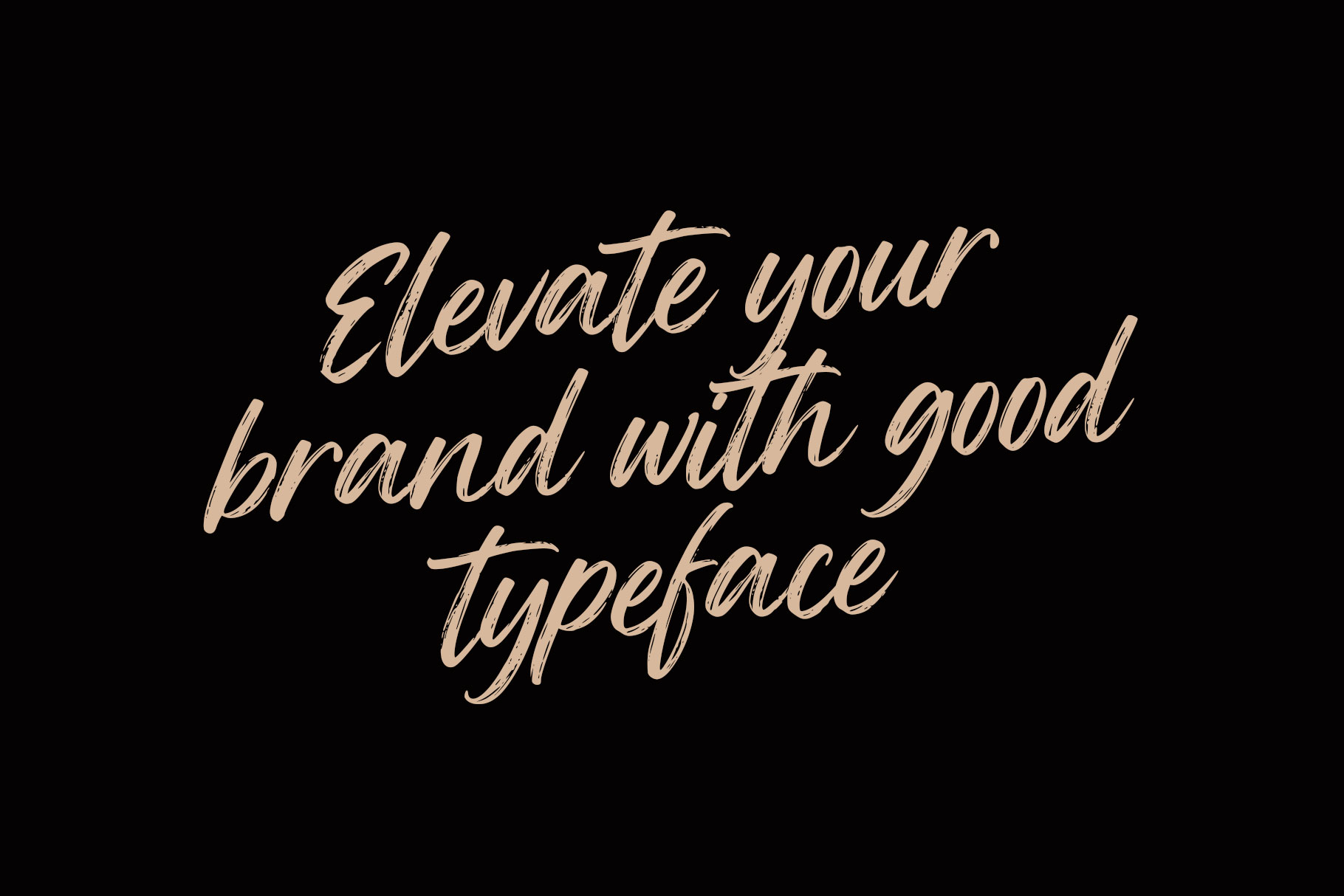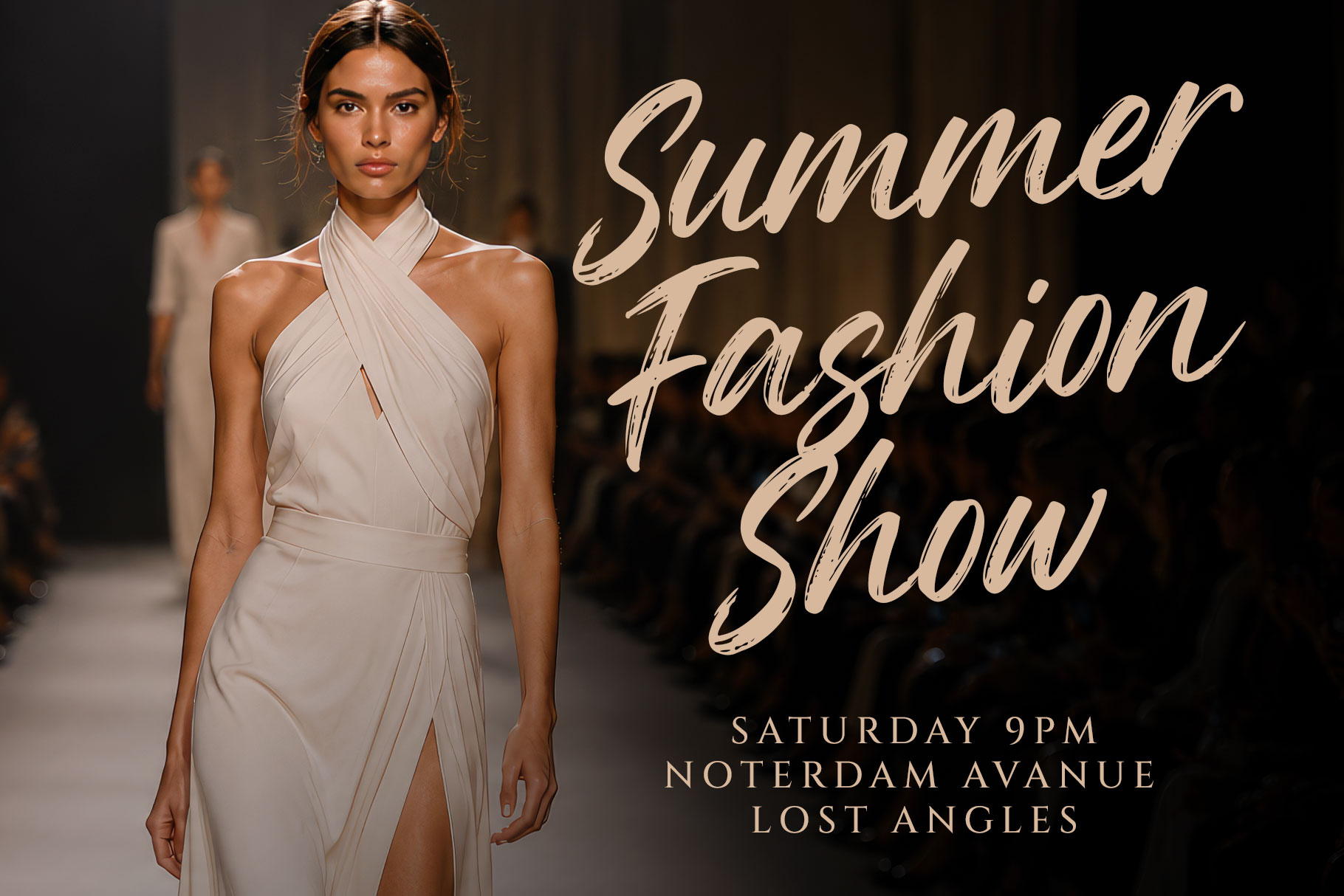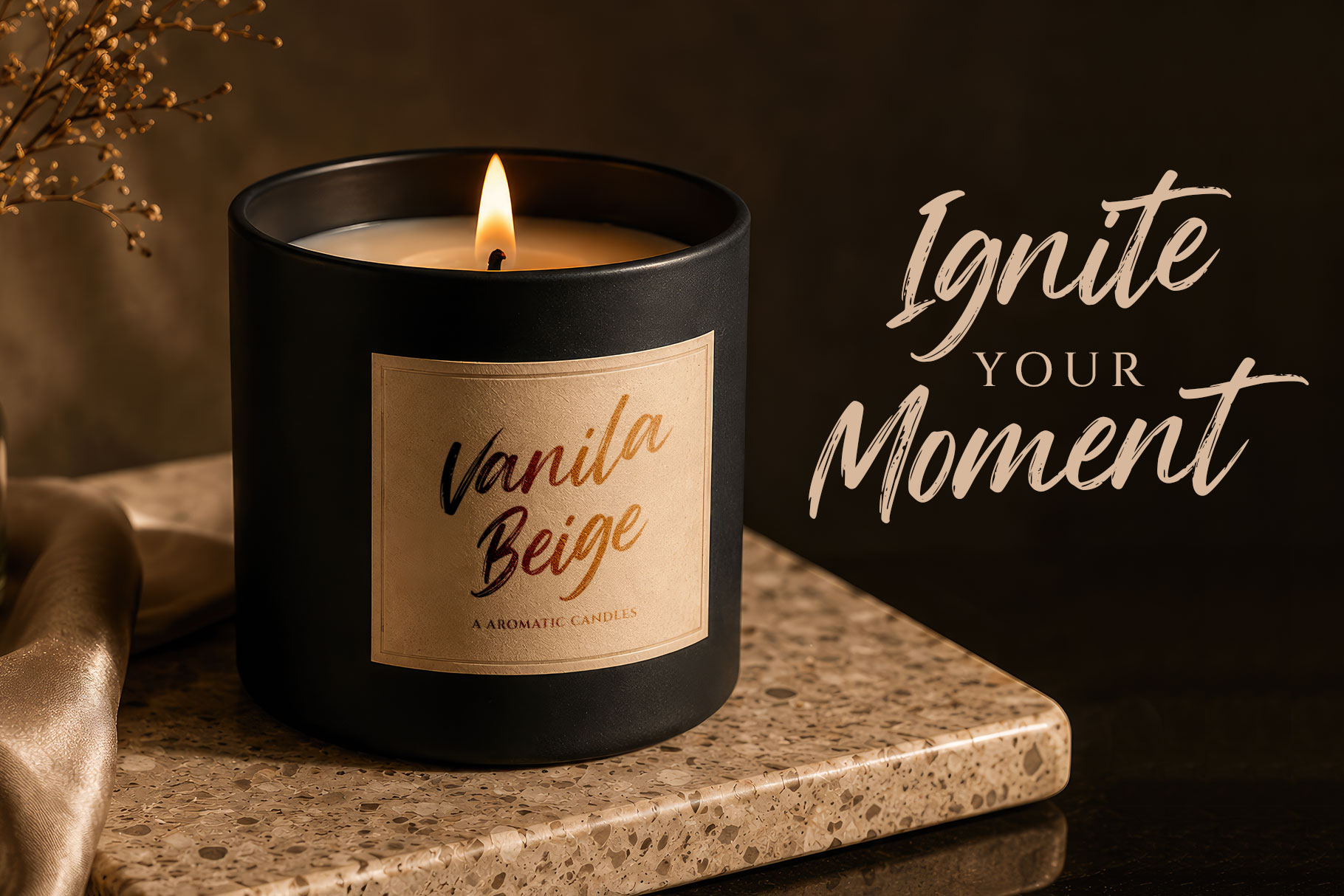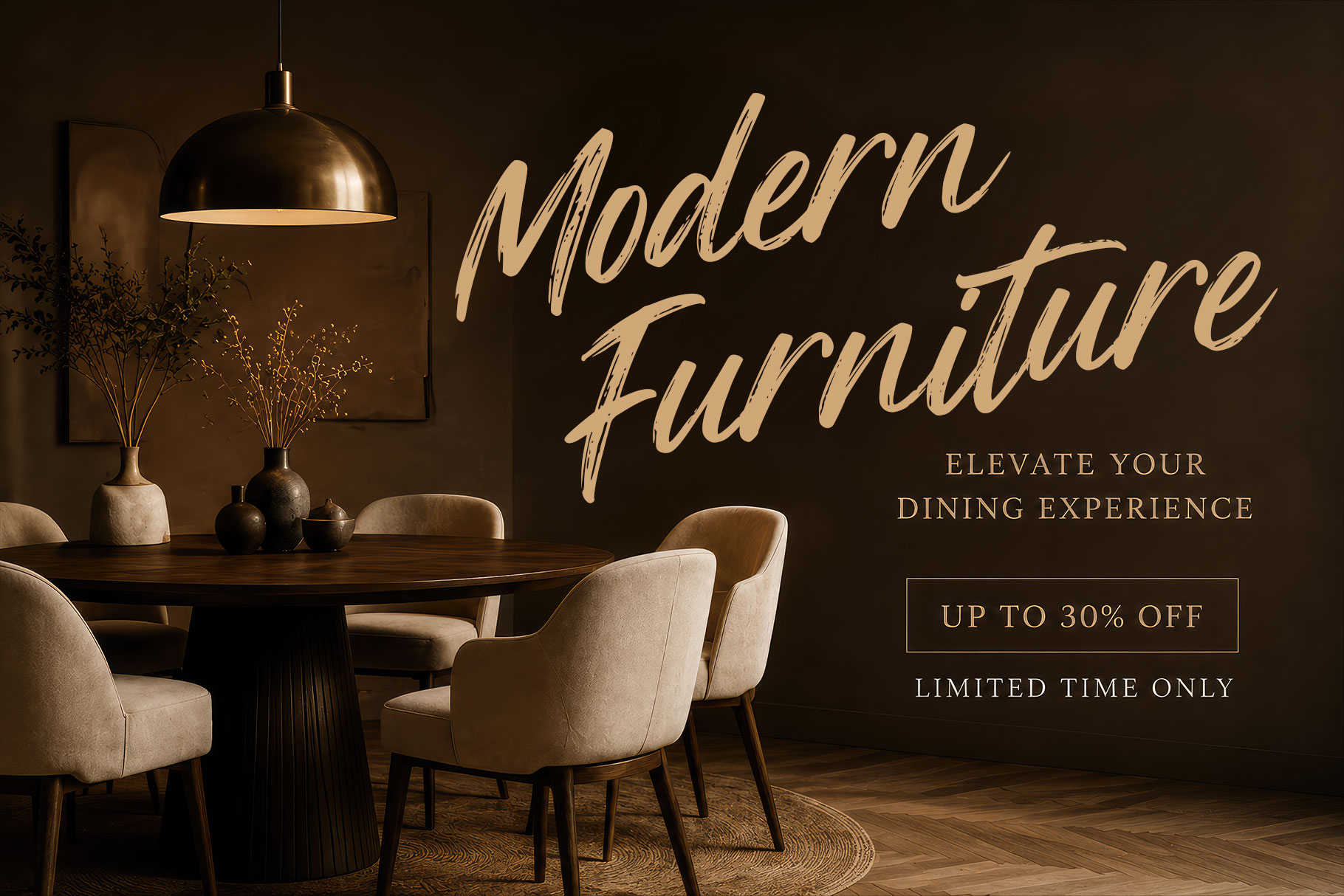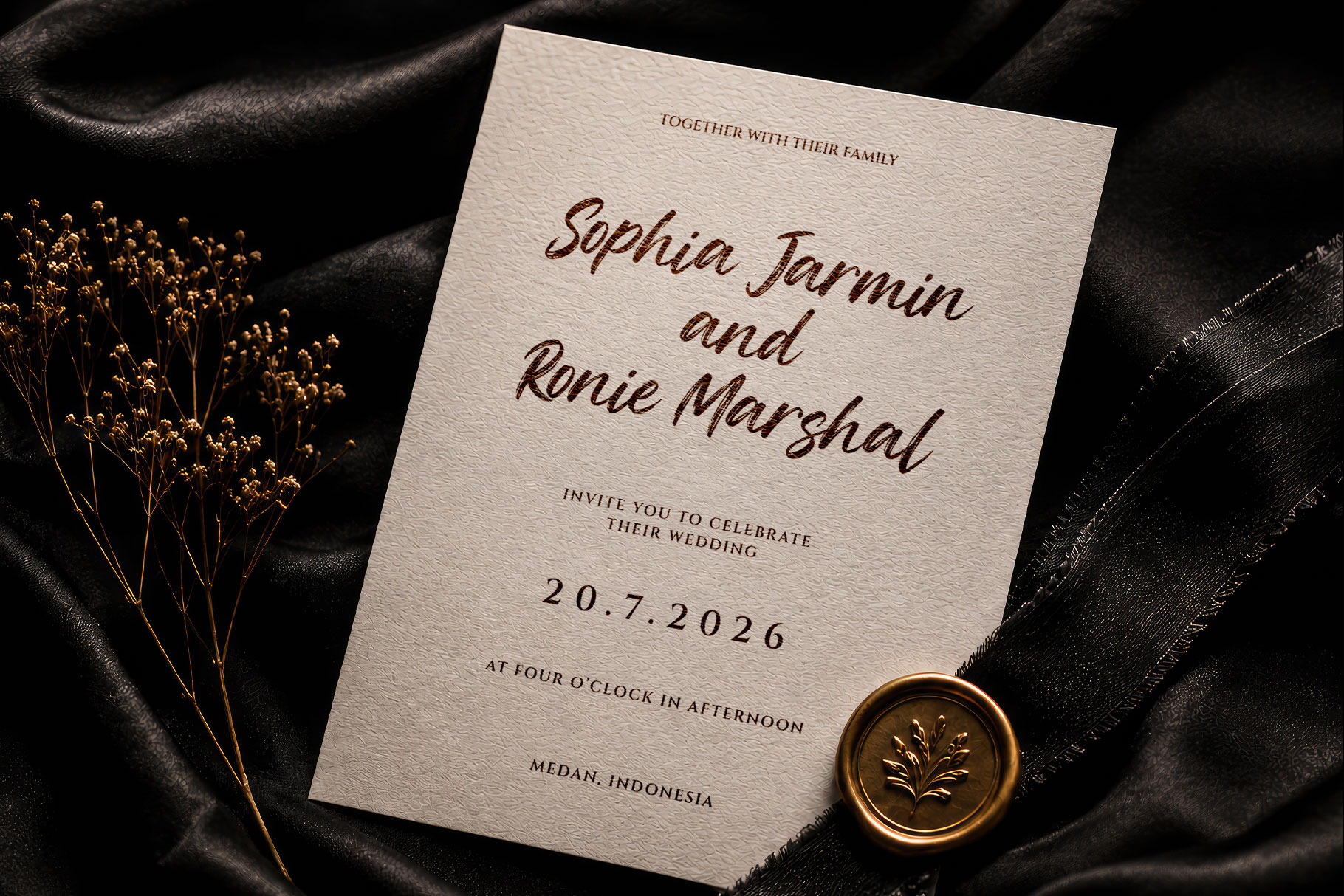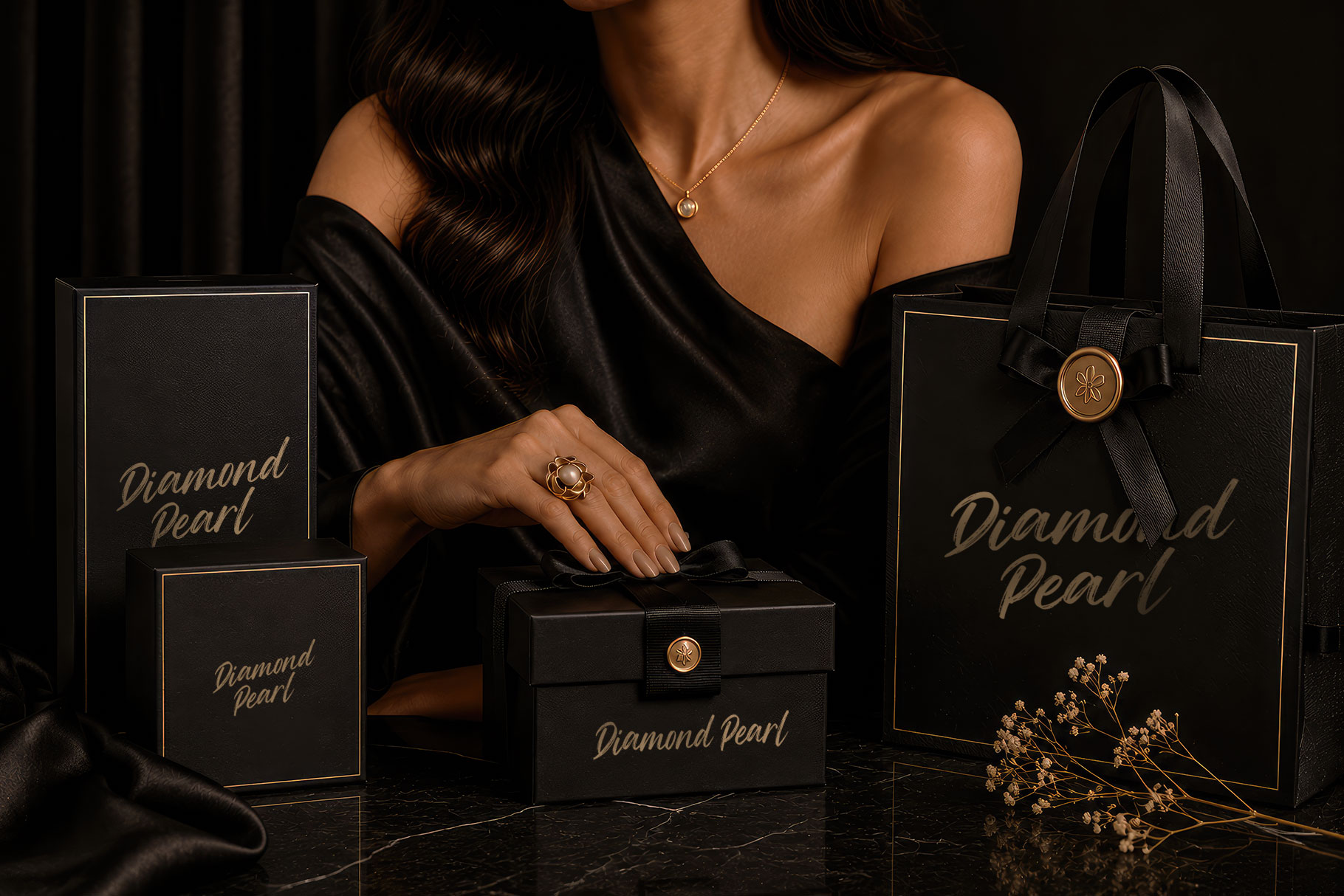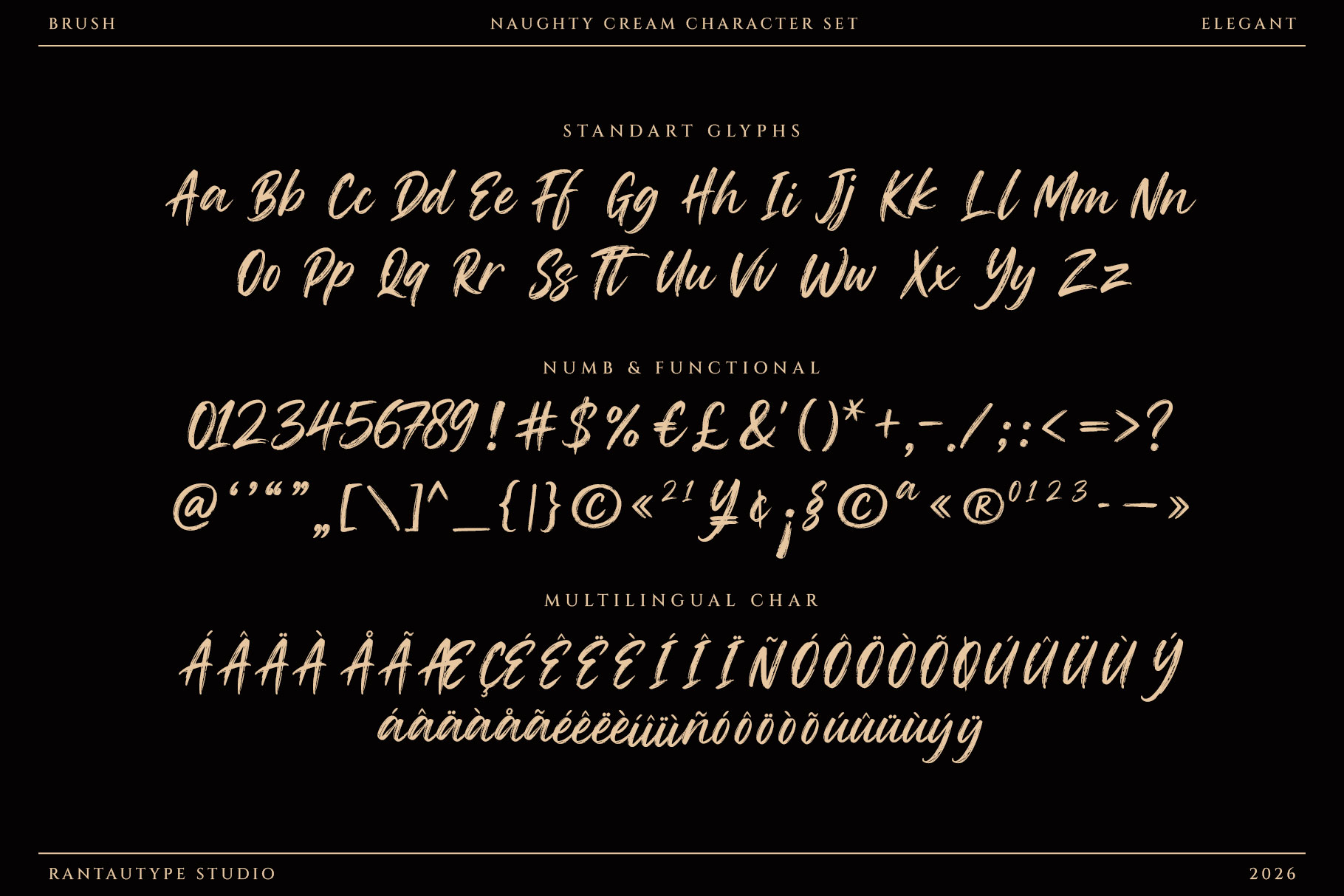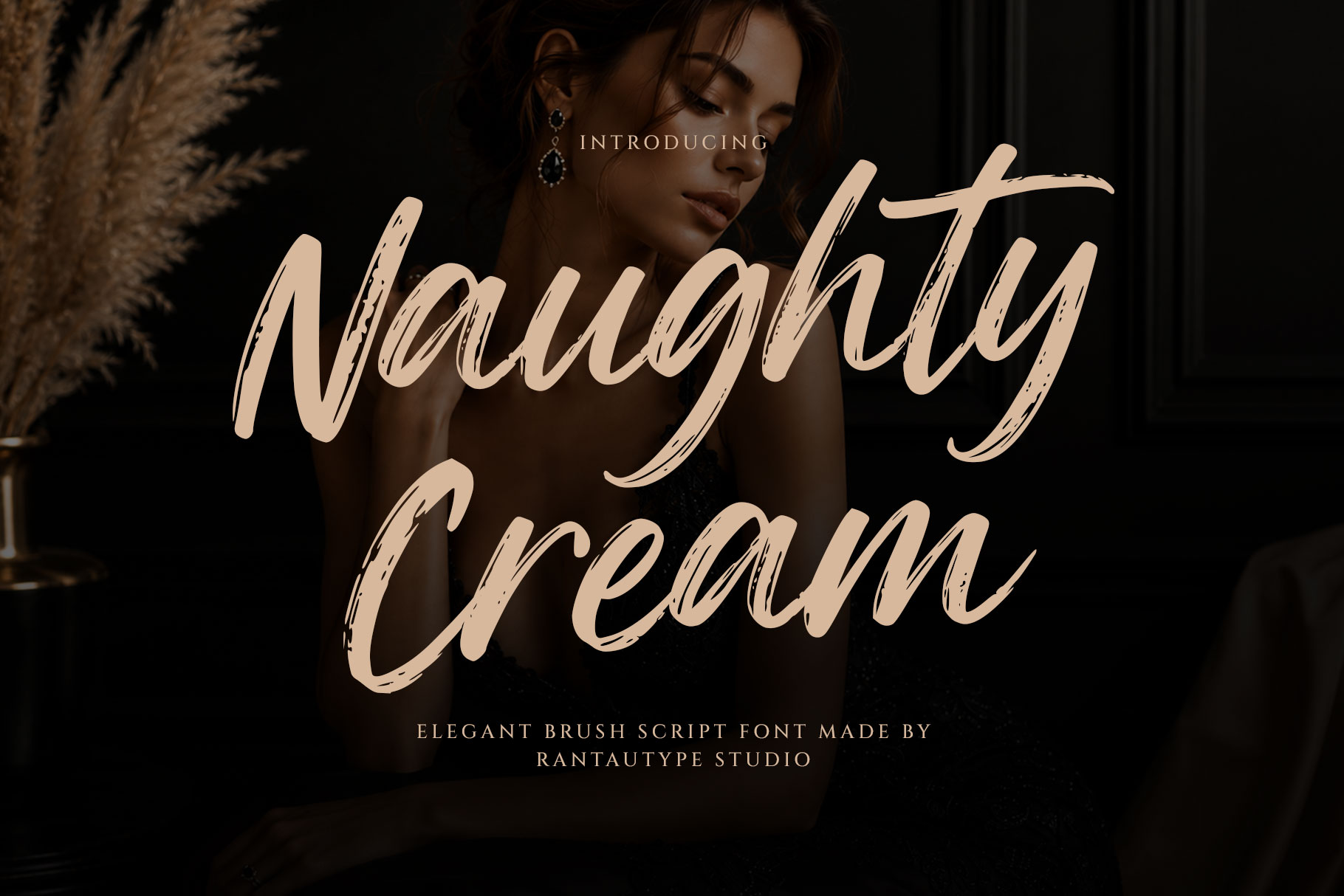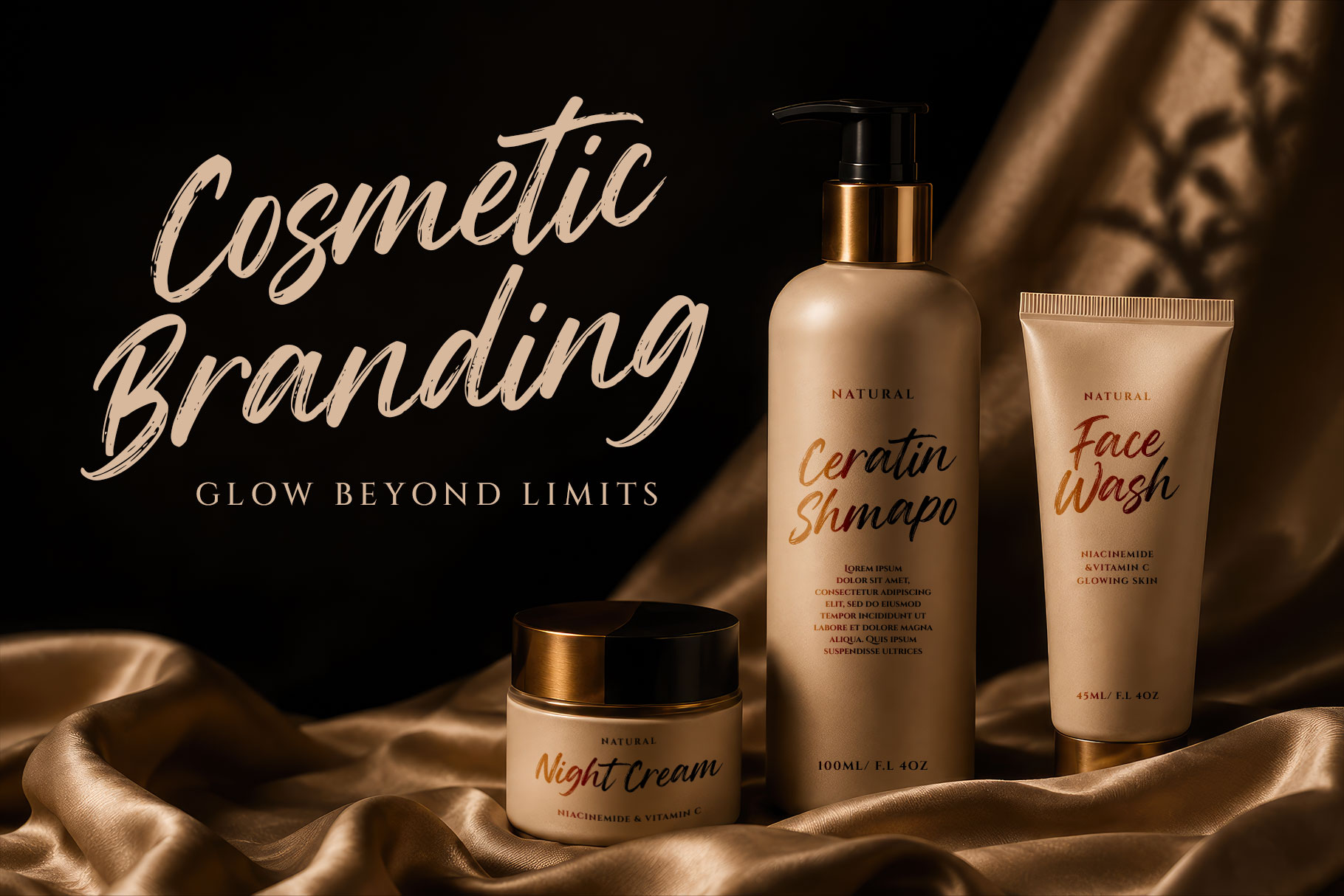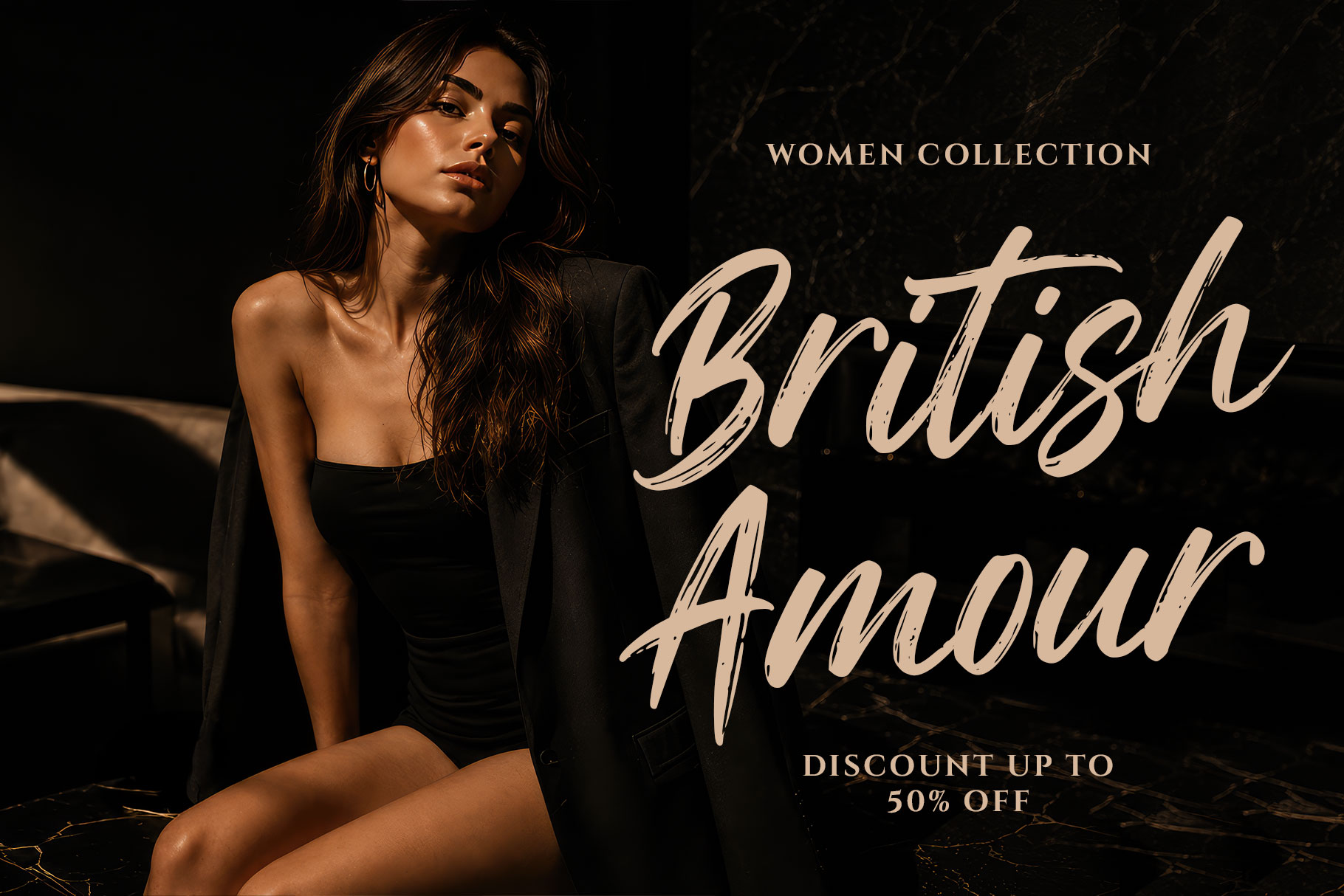
Naughty Cream is elegant brush font showcases a refined balance between luxury, confidence, and artistic expression. Designed with fluid hand-painted strokes, the lettering captures the essence of modern calligraphy while maintaining a bold and fashionable personality. Each character flows naturally into the next, creating a sense of movement and sophistication that immediately draws attention
Naughty Cream is a perfect choice for any creative endeavor, chic, lifestyle design such as logos, title, watermark on photography, cover, branding, display and magazine, wedding event, corporate brand, quotes, album cover, business card, business project, company branding and more project with Elegant taste.
Naughty Cream Elegant Brush Font